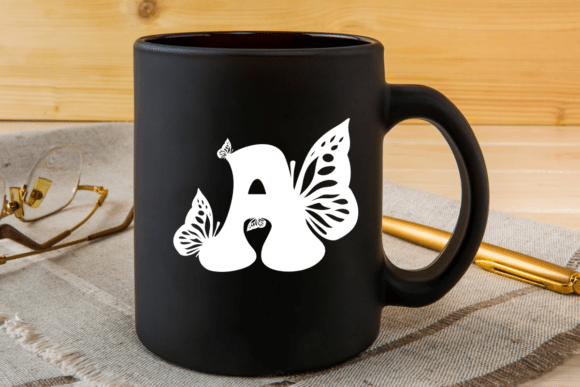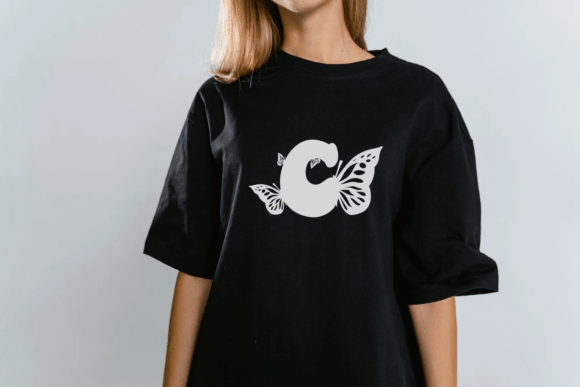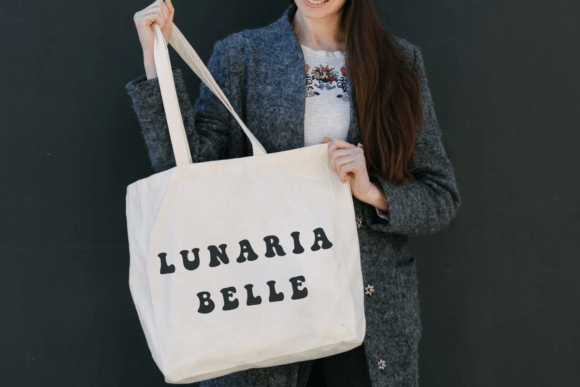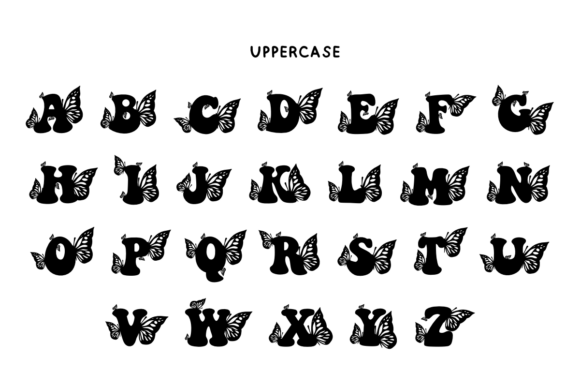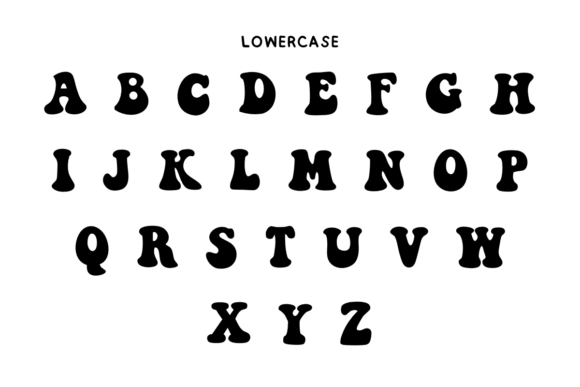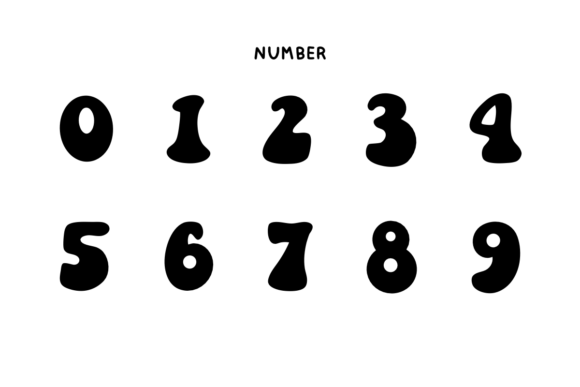
Unleash Vintage Charm with the Butterfly Retro Font
Do you remember the joy of discovering a vintage notebook or a beautifully crafted letter in your mailbox? The thrill of flipping through the pages, admiring the elegant handwriting and the classic charm that radiates from every corner? For many of us, these moments spark a desire to create something special – a heartfelt message, a personalized card, or a unique piece of art that exudes a touch of nostalgia.
That’s where the Butterfly Retro Font comes in – a highly decorative font that adds a dash of vintage charm to your creations. Whether you’re a designer, crafter, or simply someone who loves to express themselves through art, this font is a treasure trove of inspiration. With its elegant allure and versatility, the Butterfly Retro Font is a valuable addition to any designer’s toolkit.
Key Features of Butterfly Retro Font
- Unique Characteristics: Distinctive retro aesthetic with a mix of modern and vintage elements, perfect for creating a nostalgic feel in designs.
- Legibility: Designed for clear readability, making it suitable for body text, headings, and titles in various contexts.
Designer Review: Butterfly Retro Font
I recently had the chance to work with the Butterfly Retro Font, and I’m excited to share my honest review.
- The font’s nostalgic feel immediately caught my attention. It’s perfect for retro-themed projects, such as vintage-inspired websites or classic game designs.
- The font’s rounded edges and smooth curves make it easy to read, even at small font sizes.
- The font’s versatility allows it to be used in a variety of contexts, from headings to body text.
- The font’s limited character set may cause issues for projects that require special characters or non-English text.
- The font’s bold weight can appear slightly distorted when used at larger font sizes.
- The font’s ligatures can be inconsistent, leading to minor formatting issues in certain situations.
Overall, I found the Butterfly Retro Font to be a charming addition to my design arsenal. While it has some limitations, its unique aesthetic and versatility make it a great choice for the right projects. If you’re looking for a retro-inspired font that’s easy to read and fun to use, I’d definitely recommend giving Butterfly Retro a try.
Tips for Getting the Most Out of Butterfly Retro Font
Use bold or italic font styles to add emphasis to your text. Experiment with different font sizes to create visual hierarchy and balance. Combine Butterfly Retro Font with other retro-inspired elements, such as distressed textures or vintage patterns, to create a cohesive look.
Butterfly Retro Font is ideal for creating vintage-inspired designs, such as:
- Posters and flyers for music festivals or retro-themed events
- Invitations and announcements for vintage-themed parties
- Branding and packaging for retro-style businesses or products
Alternatives to Butterfly Retro Font